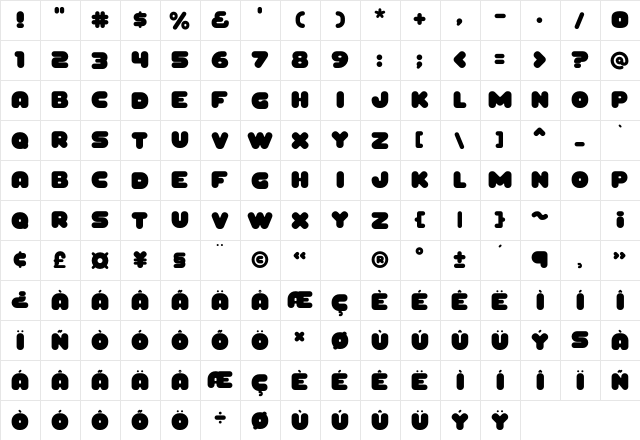
Yeyey Regular
| Foundry | Don Marciano |
| Designer | Juan Miguel Castillo |
Design Context for Yeyey Typeface
Yeyey is a composed and adaptable typeface that performs quietly and consistently across a wide range of design contexts.
Pro Tip: Pair Yeyey with a font of contrasting weight or personality to build a more expressive typographic hierarchy.